Indie Fonts 3: A Compendium of Digital Type from Independent Foundries
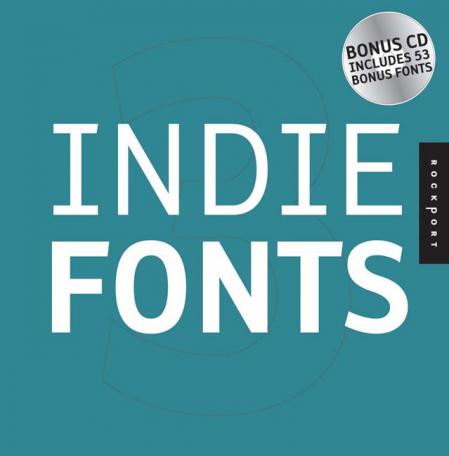
If you're searching for a font that goes beyond ho-hum, this book is for you. Today's computers provide a selection of fonts that serve reasonably well for workaday letters and publications, but have become utterly boring from overuse. To attract a reader's attention, you need an original font.
This third volume of Indie Fonts provides a showcase collection of 1,600 new fonts from today's hottest digital type foundries, and features the best work of these designers. As with the first two volumes, Indie Fonts 3 will help readers find some of the highest quality fonts available today.
Type styles range from the best of Matthew Carter's classic designs to the latest irreverence of ingoFonts. Designers searching for unique typefaces will find what they are looking for, whether historical revivals or futuristic techno faces.